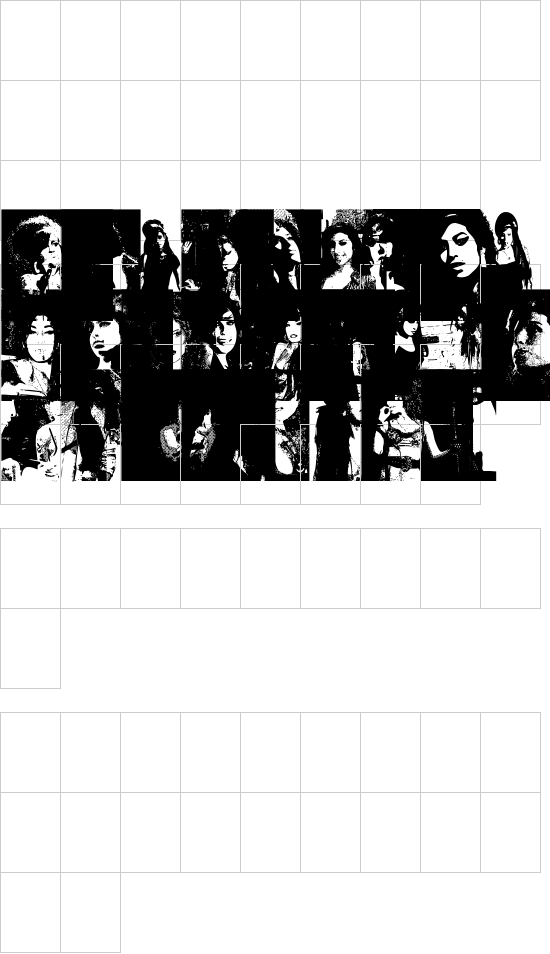
AmyBats3 is a dingbat font offering a collection of decorative picture glyphs in place of regular letters. Each key holds a small icon or ornament, giving you a grab bag of ready-made graphics rather than typeable text.
Those icons suit craft projects, sticker sheets, badge designs, and playful social media accents. AmyBats3 is free to download as a TrueType file, and you can preview it by typing across the keyboard to see which glyphs come up before you use them.